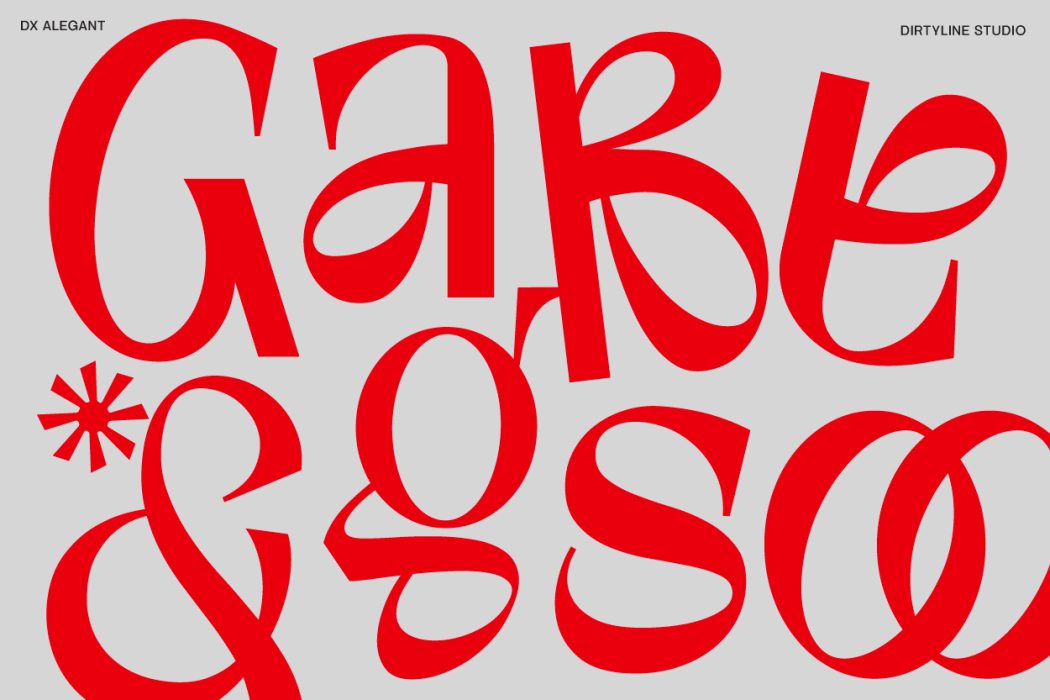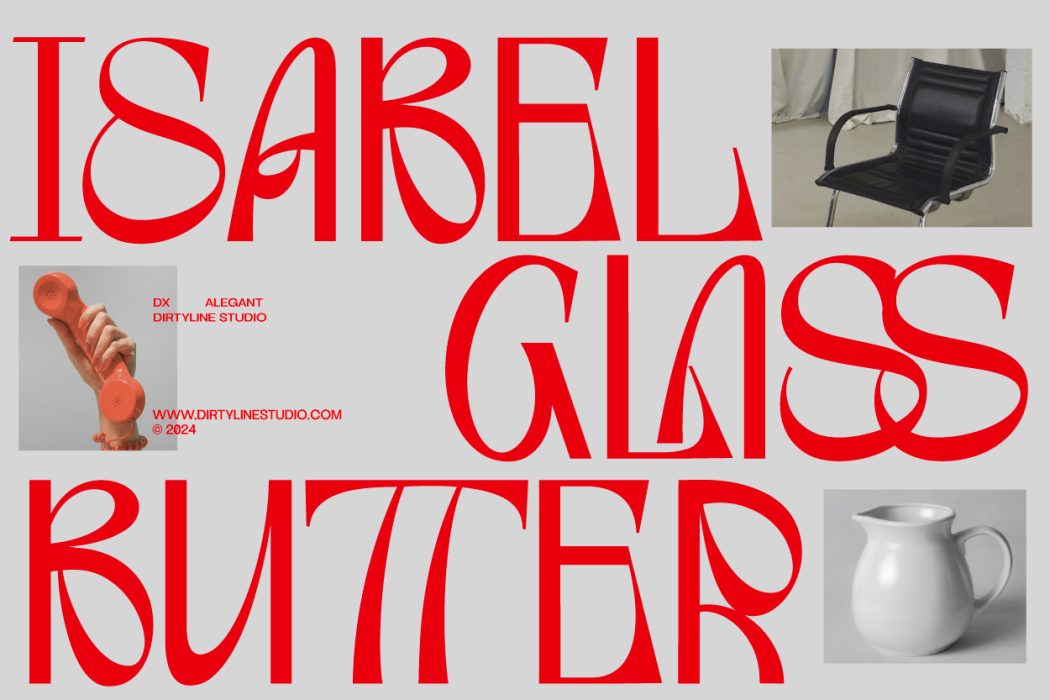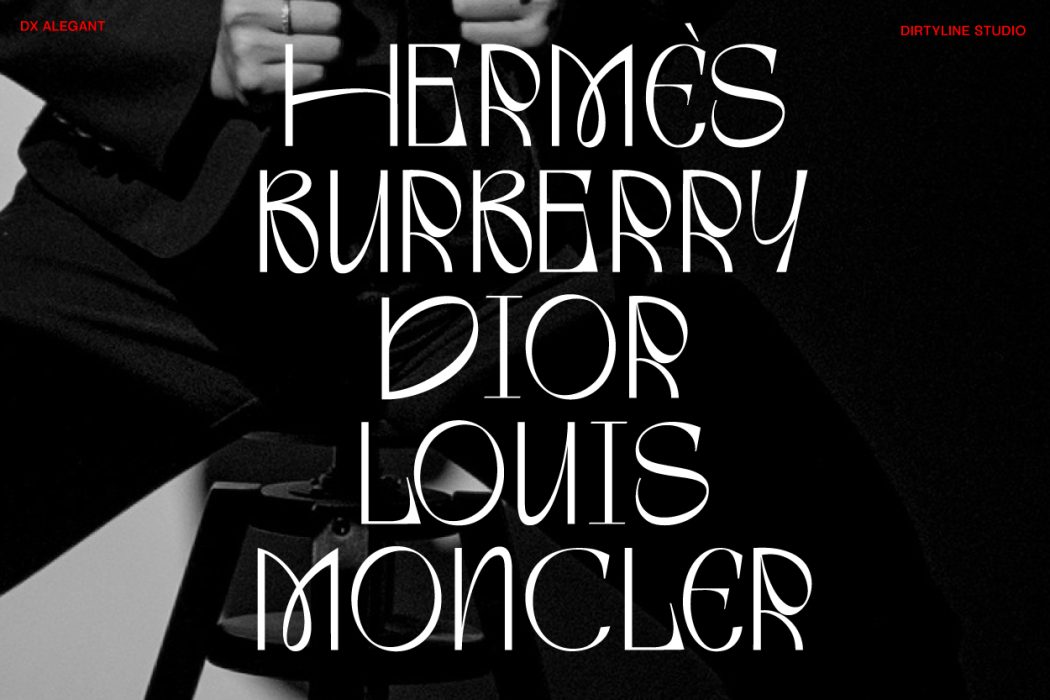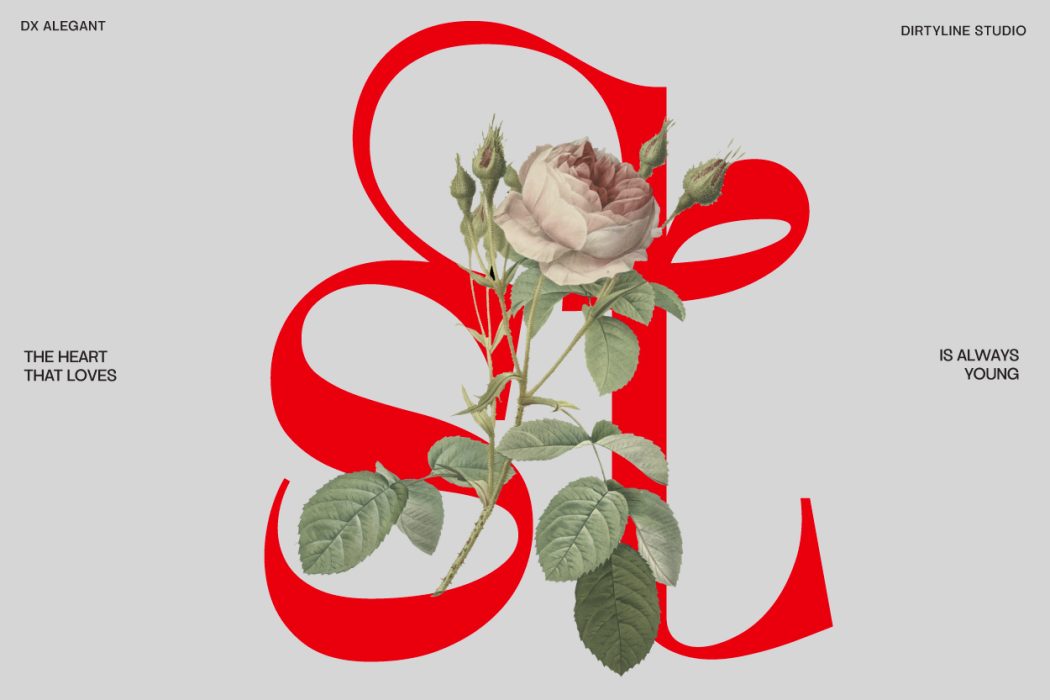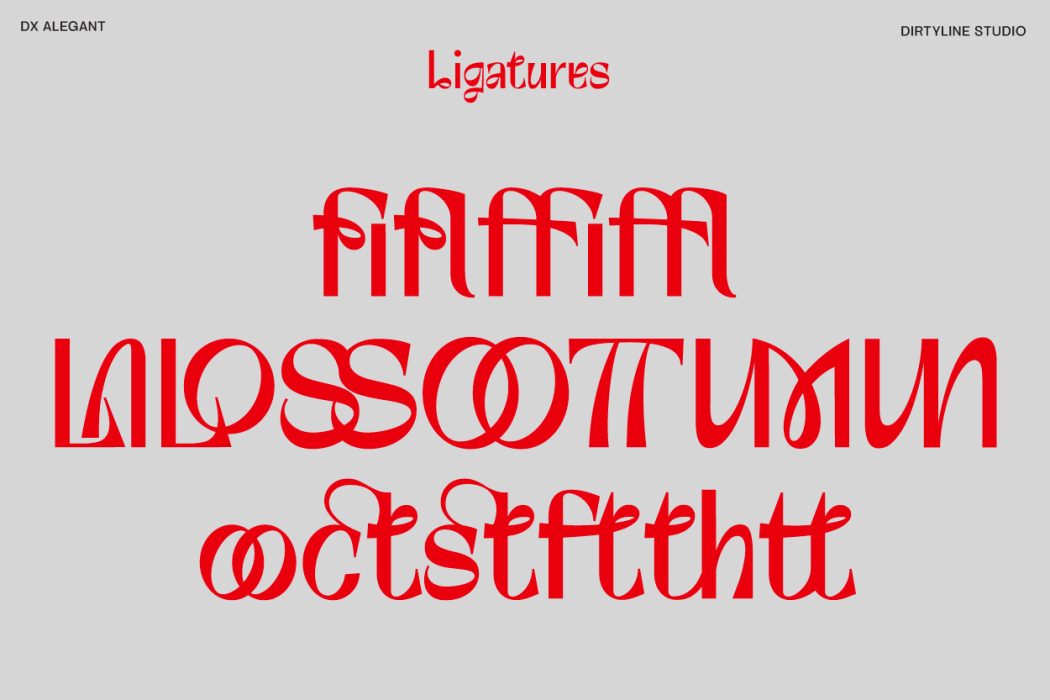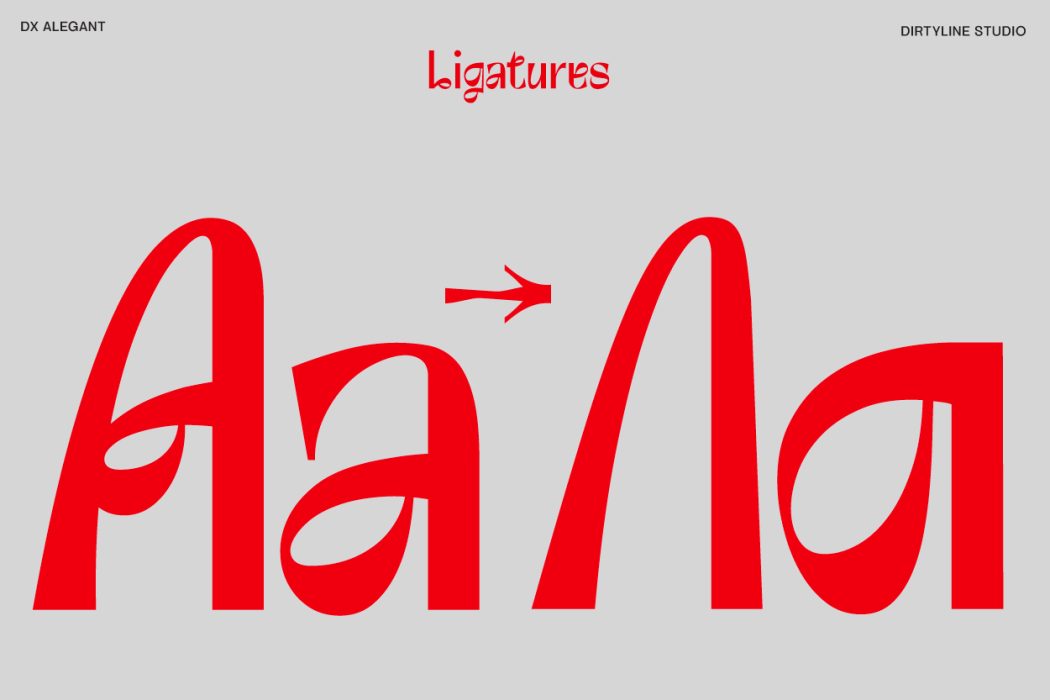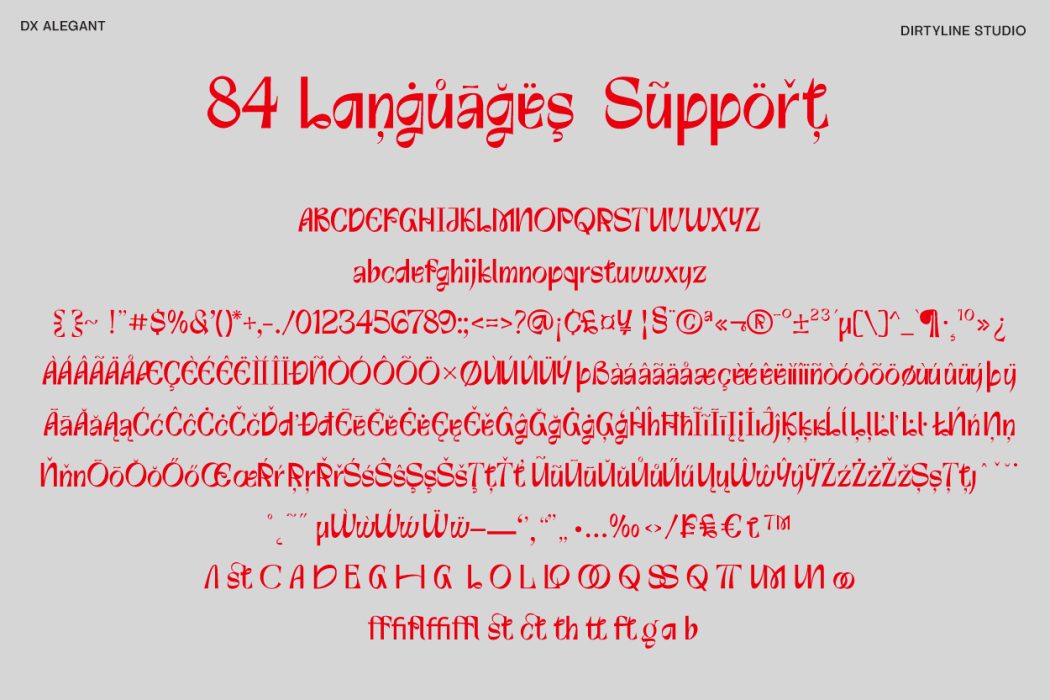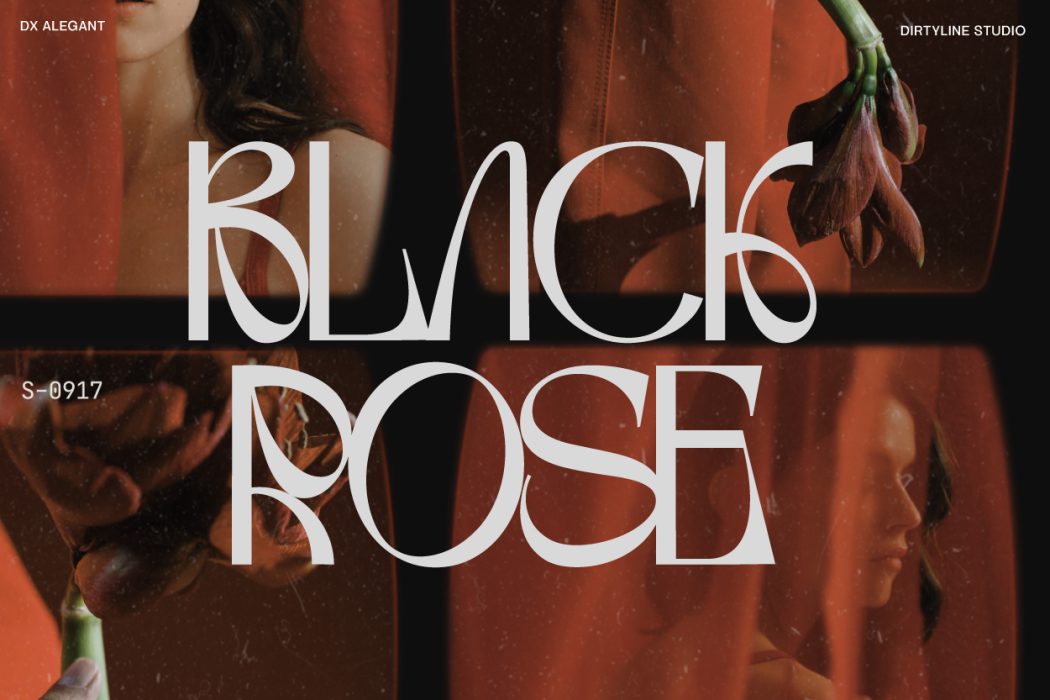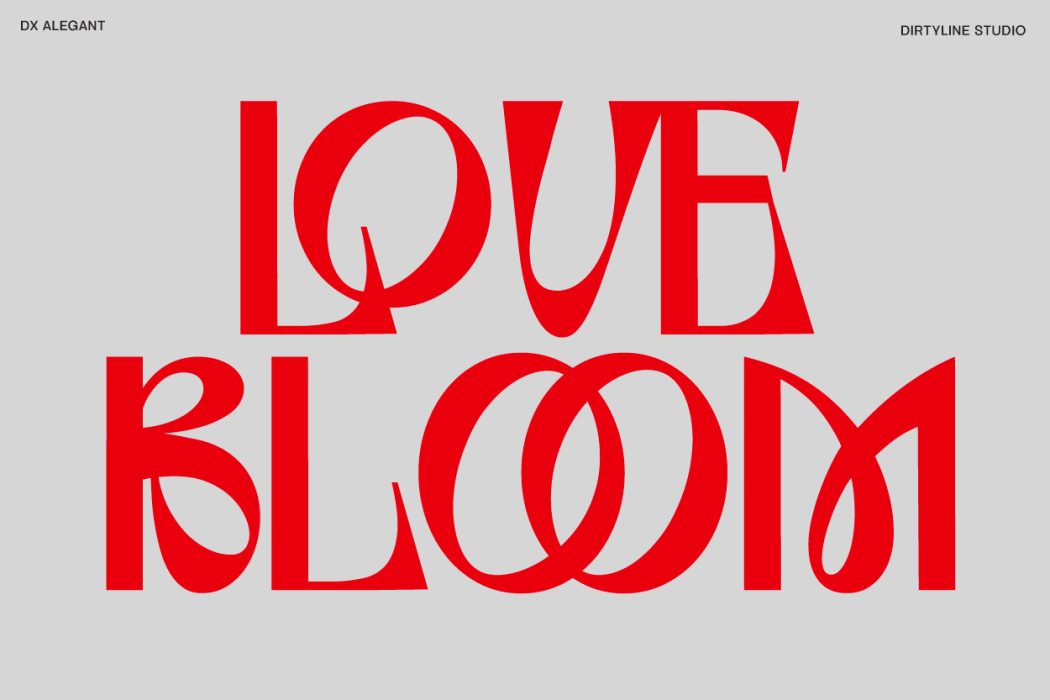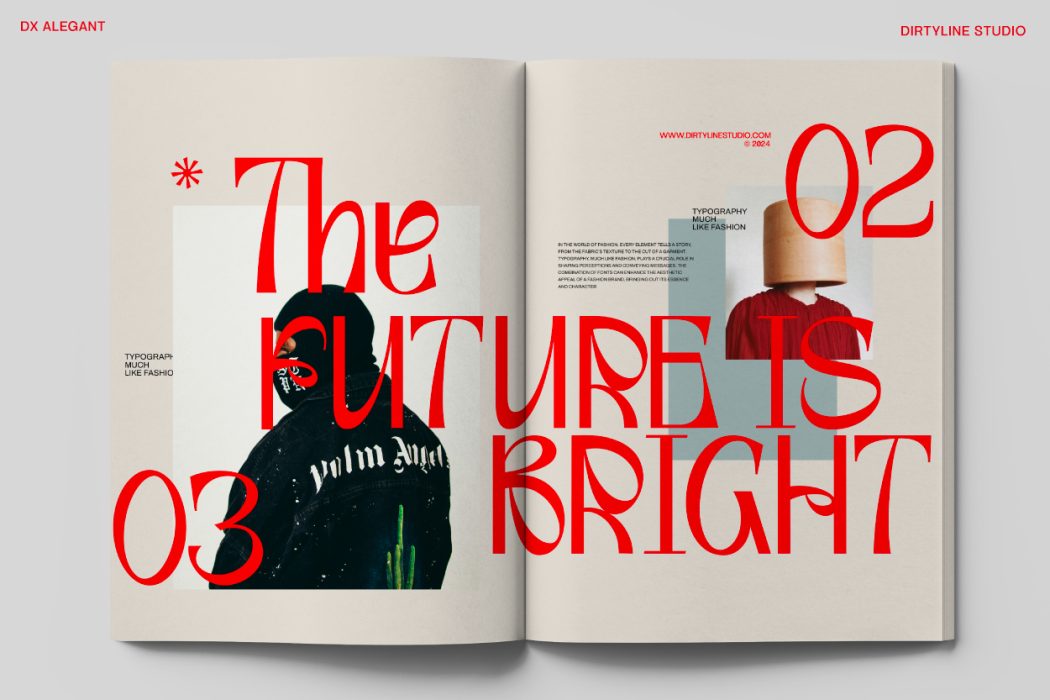
Dx Alegant Free Demo Version
Dx Alegant, a groundbreaking display font brought to you by Dirtyline Studio. This font masterfully combines elegance with modern design aesthetics, making it an ideal choice for branding, logo design, and editorial use.
- Unique Character: With a collection of 388 glyphs, Dx Alegant stands out with its bold and expressive characters that add a unique flair to any design project.